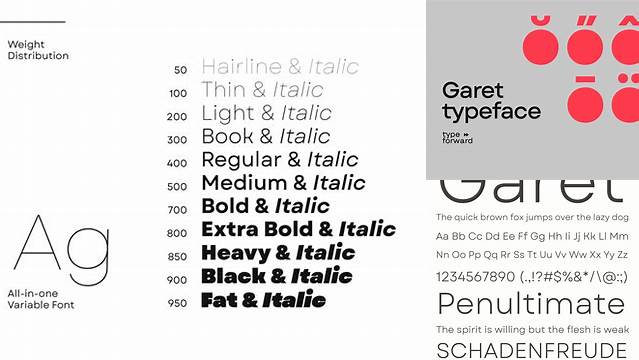
Are you on the hunt for a versatile and modern font that won't break the bank? Look no further! Garet Regular font is a fantastic option that's available for free, making it a perfect choice for a wide range of design projects. Whether you're working on a website, creating marketing materials, or designing a logo, Garet Regular can provide that clean and contemporary look you're after.
What Makes Garet Regular Font Special?
Garet Regular isn't just another run-of-the-mill font; it boasts several features that make it stand out. Its clean lines and balanced letterforms give it a professional and readable appearance. The font's versatility shines through its ability to adapt to different design styles, from minimalist to corporate. Plus, being free, it's an accessible option for designers of all levels, from students to seasoned professionals. Let's delve into what makes this font a great choice.
Key Features of Garet Regular
- Readability: Garet Regular is designed with readability in mind. The spacing between letters and the overall letterforms are crafted to ensure a comfortable reading experience, whether it's on screen or in print. This is crucial for body text and longer blocks of content where legibility is paramount.
- Modern Aesthetic: The font has a contemporary feel that aligns with current design trends. Its simplicity and clean lines make it a good choice for projects that require a modern and uncluttered look. This is especially useful in branding and web design.
- Versatility: Garet Regular works well in a variety of contexts. From headlines to body text, it maintains its clarity and impact. This versatility allows designers to use it across different elements of a project, creating a cohesive visual identity.
Design Applications of Garet Regular
- Web Design: Garet Regular is an excellent choice for website typography. Its readability ensures that visitors can easily consume content, while its modern aesthetic enhances the overall visual appeal of the site. It's also compatible with various web browsers and devices, ensuring a consistent user experience.
- Branding: The font can be used in logo design and other branding materials to create a strong and consistent brand identity. Its clean and professional appearance helps to convey a sense of trust and reliability, which is essential for building brand credibility.
- Print Materials: Garet Regular is equally effective in print. Whether you're designing brochures, posters, or business cards, the font maintains its clarity and impact. Its versatility allows it to adapt to different print formats and styles.
- User Interfaces (UI): With its clear and legible letterforms, Garet Regular is a suitable option for designing user interfaces. It ensures that users can easily read and understand the text, enhancing the overall usability of the interface. This is particularly important for apps and software where clarity is paramount.
In conclusion, Garet Regular font is a solid, free option for designers seeking a modern and versatile typeface. Its readability, clean lines, and adaptability make it suitable for a wide array of projects. Remember to download from reputable sources, understand the licensing, and follow best practices for font usage to maximize its effectiveness. If Garet Regular doesn't perfectly fit your needs, explore the alternatives mentioned above to find the perfect font for your next design endeavor. Happy designing, folks!